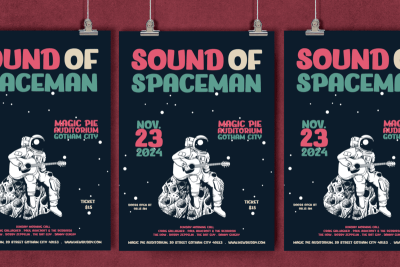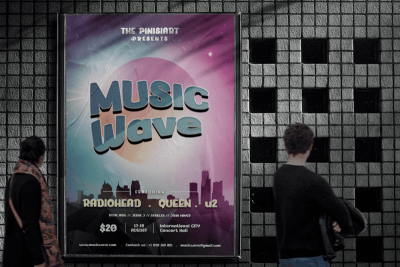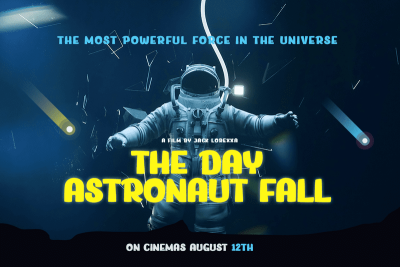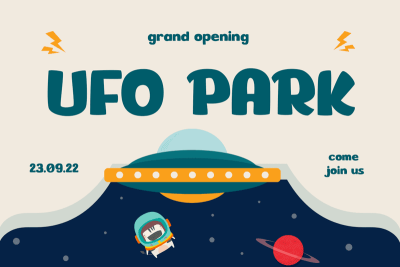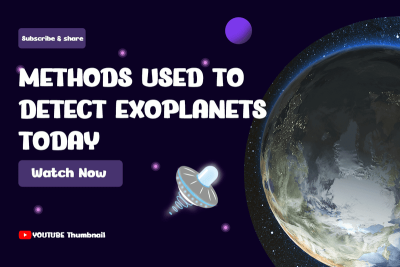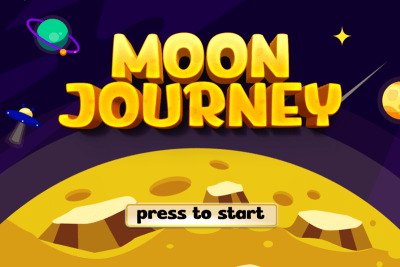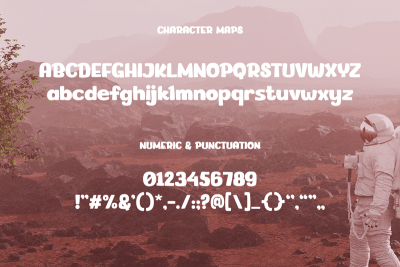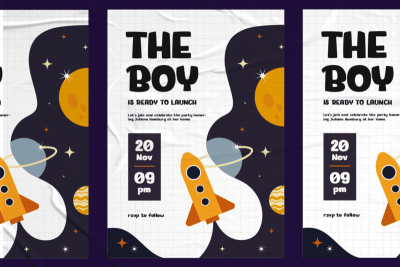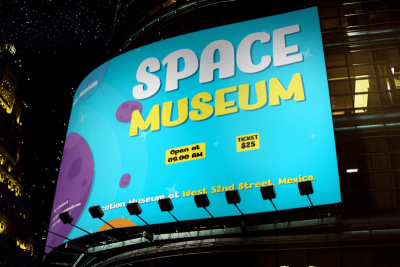
Cute font Planet Joy is a playful typeface that inspires creativity and joy. Designed with rounded, bubbly characters, it captures a space-themed vibe that appeals to both kids and adults. This font adds a cheerful and whimsical touch to any project while maintaining excellent readability. Its smooth curves and unique details make it ideal for vibrant social media content or eye-catching educational materials. Planet Joy shines in its versatility, fitting perfectly into projects that require an engaging and fun aesthetic without compromising clarity.
Whether youโre crafting a poster, designing a website, or creating an invitation, this font brings a unique charm that instantly grabs attention. The space travel theme, complemented by its cartoonish style, gives it an edge for imaginative projects. Its bold and friendly appearance also makes it a great choice for creating memorable logos, headers, or promotional materials that need to stand out.
Planet Joy ensures a balance between fun and functionality, making your designs not just visually appealing but also highly readable. With its playful nature and creative charm, it is the perfect font to transform ordinary designs into extraordinary works of art.
Planet Joy is perfect for educators, designers, and content creators focusing on playful themes. It’s ideal for childrenโs books, classroom decorations, and creative storyboards. Retailers, like toy stores or kidsโ fashion brands, can use it to craft inviting visuals and engaging product promotions.
This font is also excellent for event planners creating space-themed party invitations or decor. Its lively nature appeals to both kids and adults, making it suitable for a wide range of events. Hobbyists will find it useful for DIY crafts or personalized projects that need a vibrant and imaginative touch. Content creators for YouTube or social media will appreciate how it makes thumbnails, banners, or posts more attractive and playful. Whatever your creative vision, Planet Joy brings excitement, warmth, and a touch of wonder to your designs.